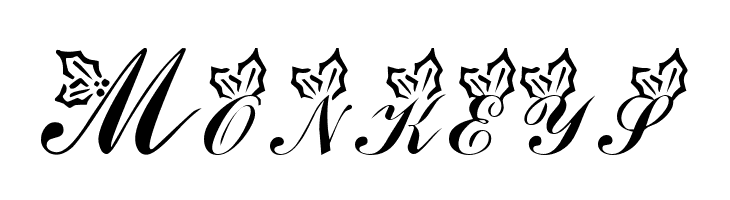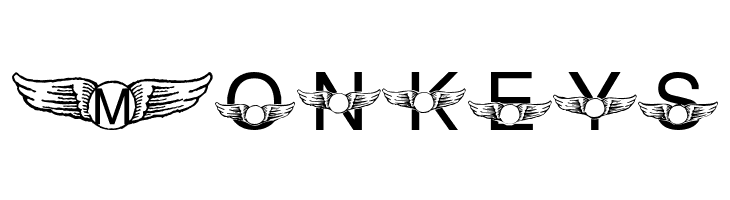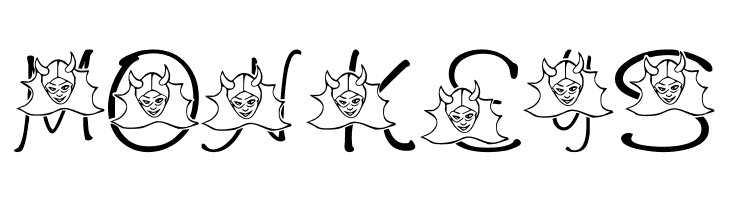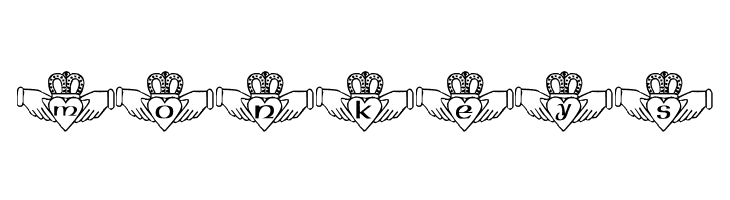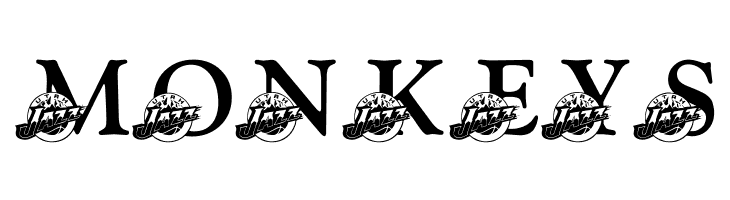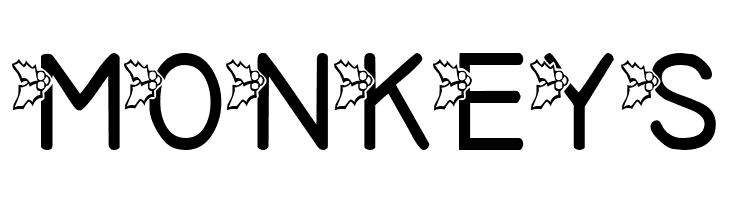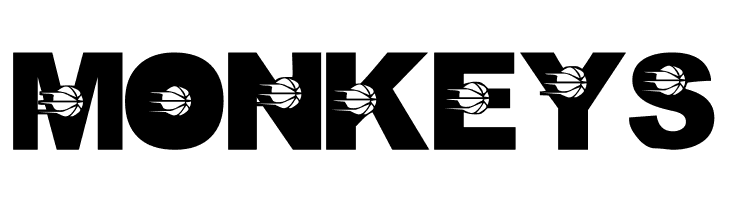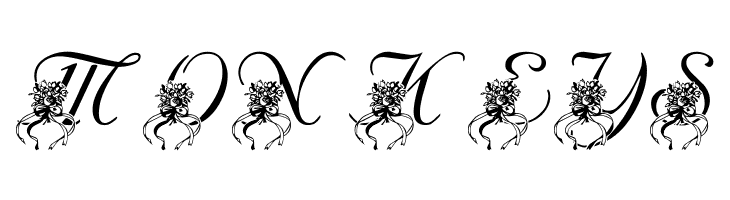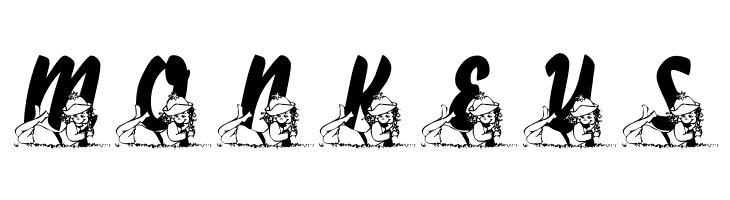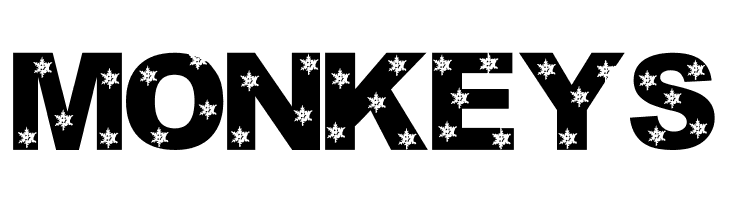
A festive, decorative font with holly motifs, perfect for holiday themes.
A decorative font with winged embellishments, ideal for fantasy-themed projects.
A bold, playful font with superhero-themed embellishments on each letter.
An ornate, Claddagh-inspired decorative font with intricate designs.
A bold, dynamic font with a sporty, energetic style.
A festive, decorative font with holly embellishments on each character.
A bold, sports-themed font with integrated basketball motifs.
An ornate script font with floral embellishments, perfect for elegant designs.
A playful, decorative script font with whimsical illustrations.
A bold, decorative font with snowflake-filled characters for festive designs.